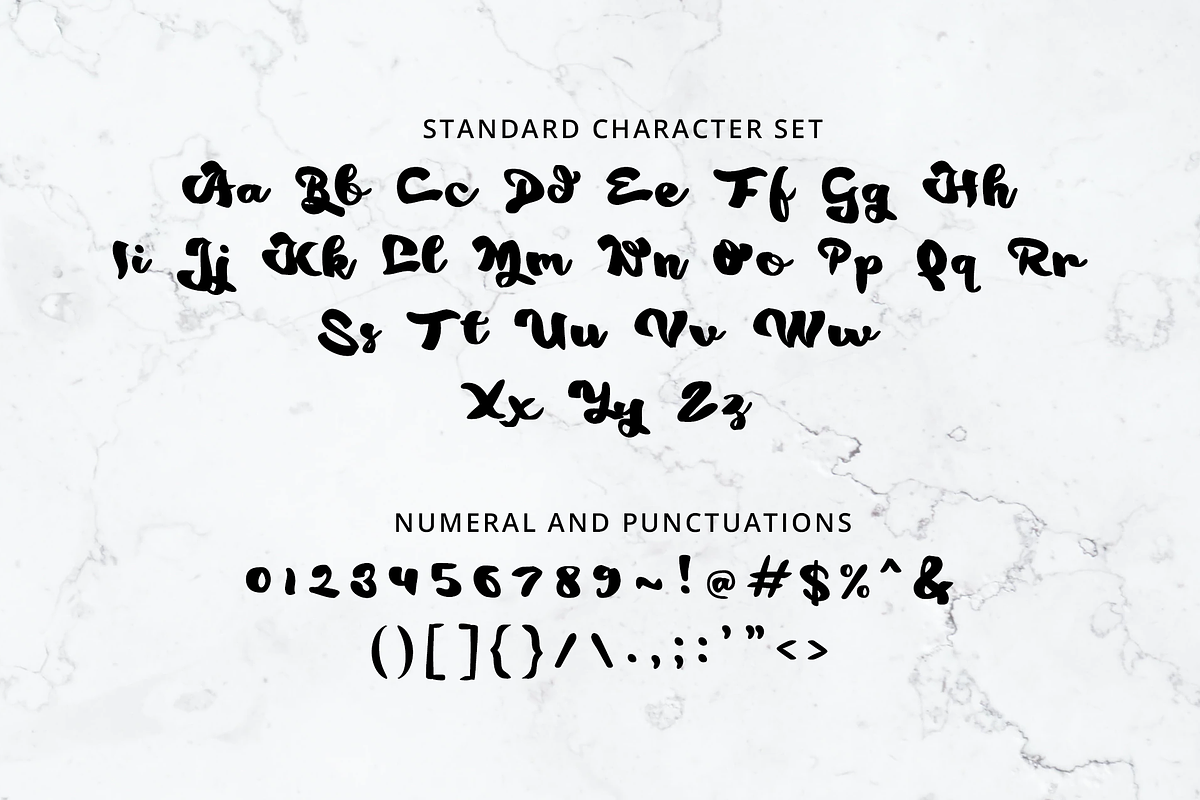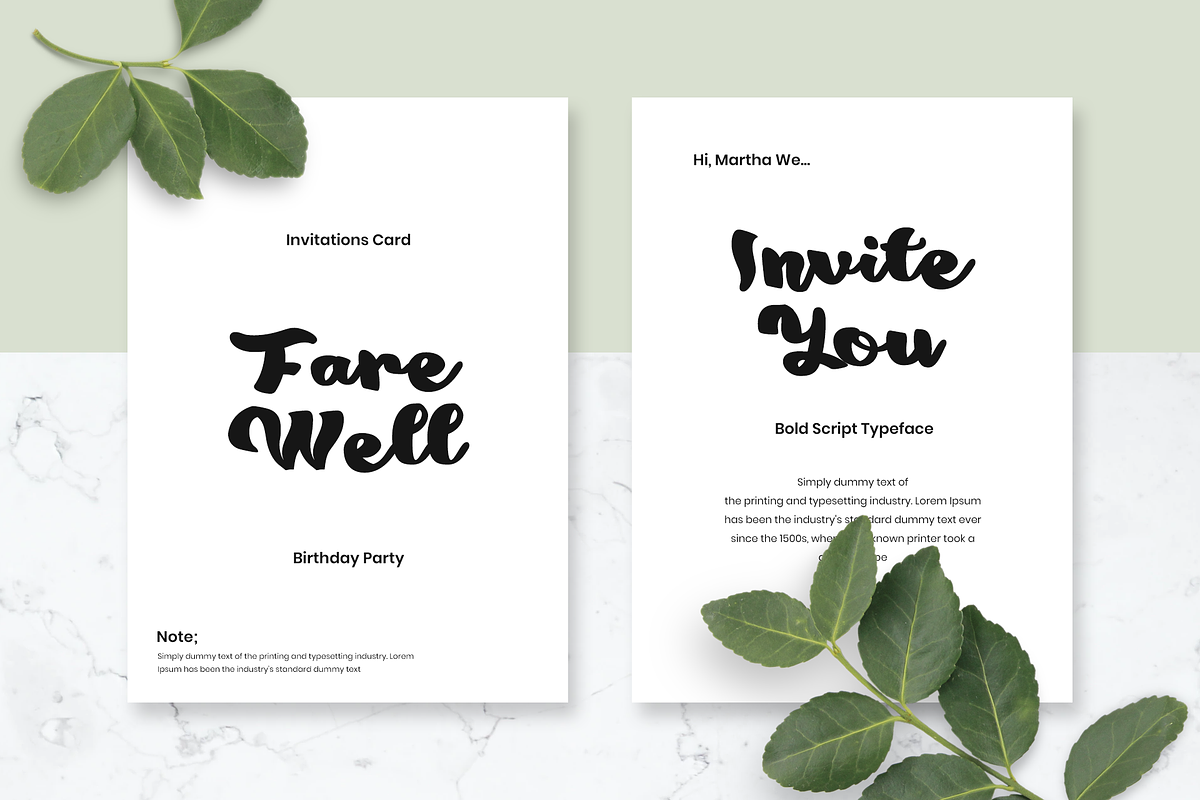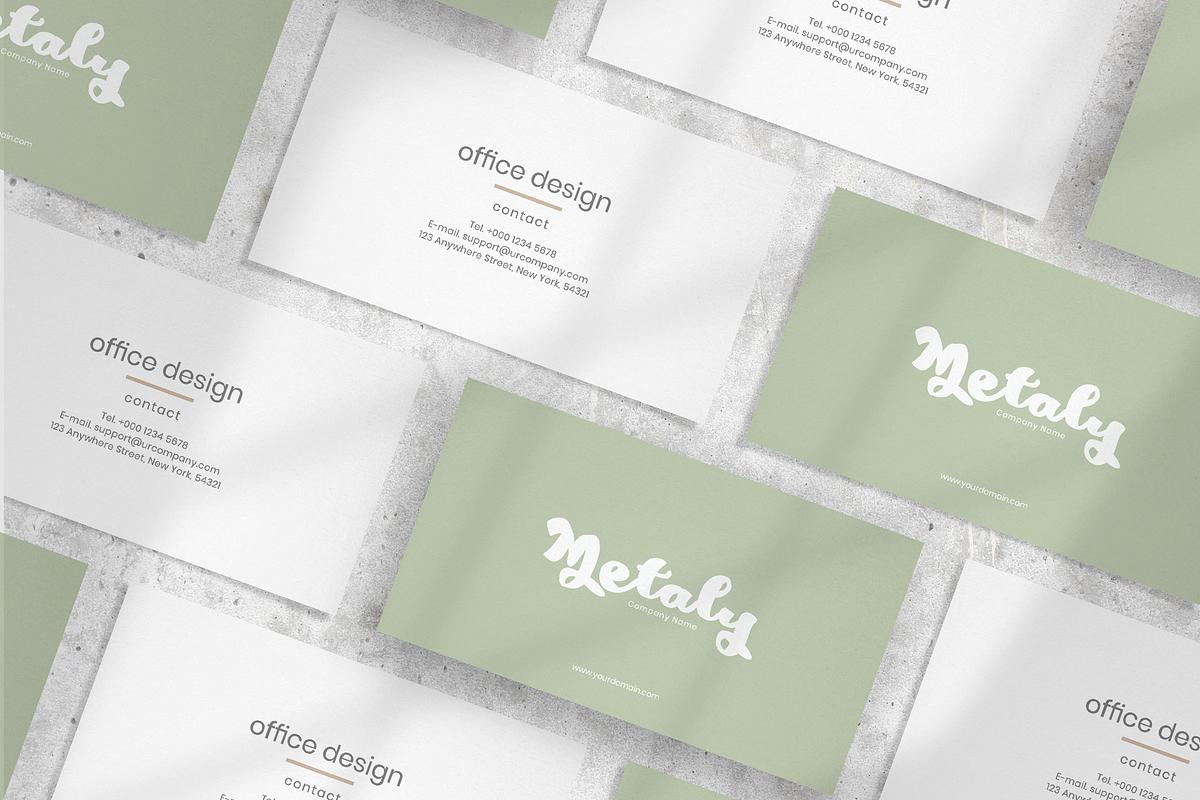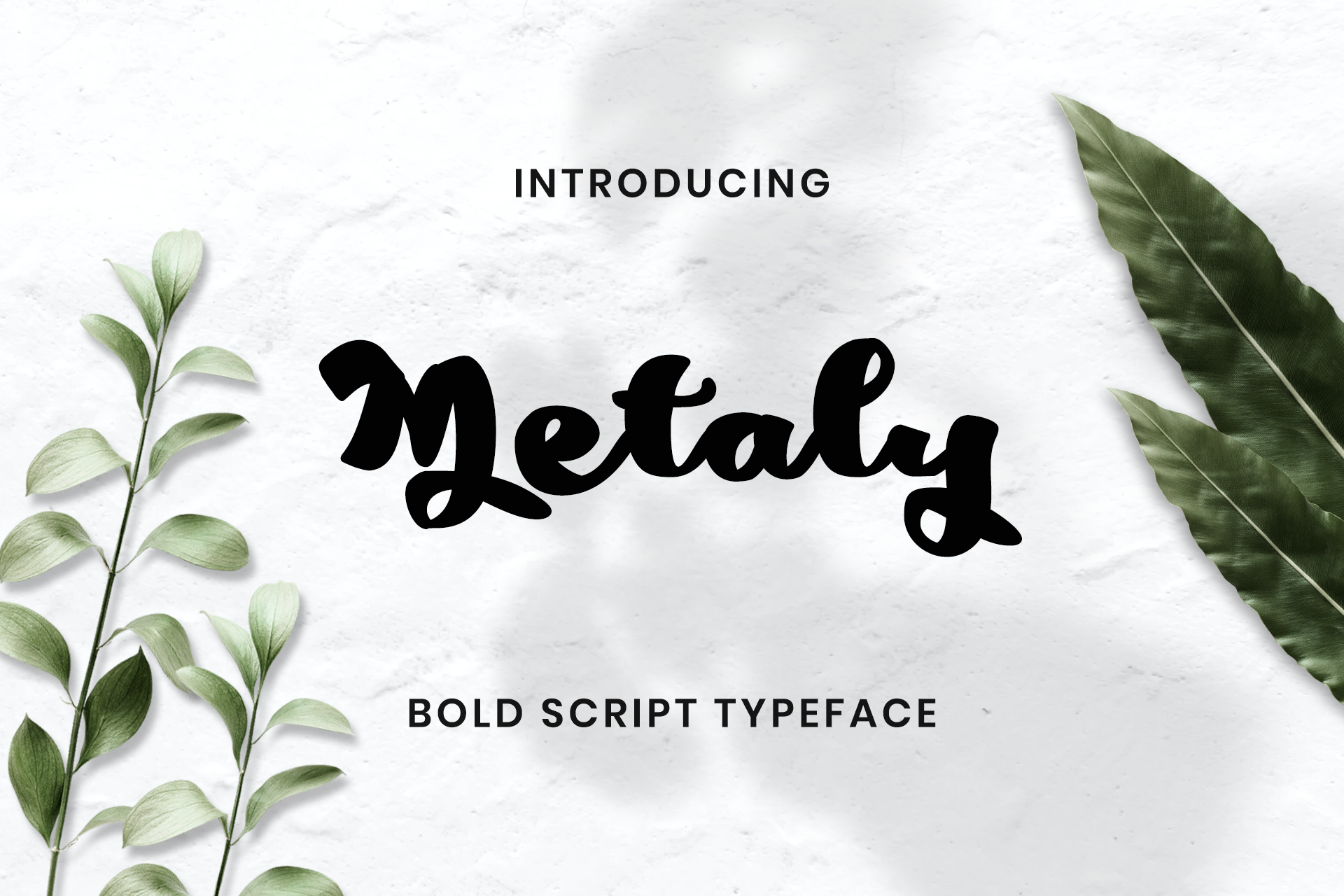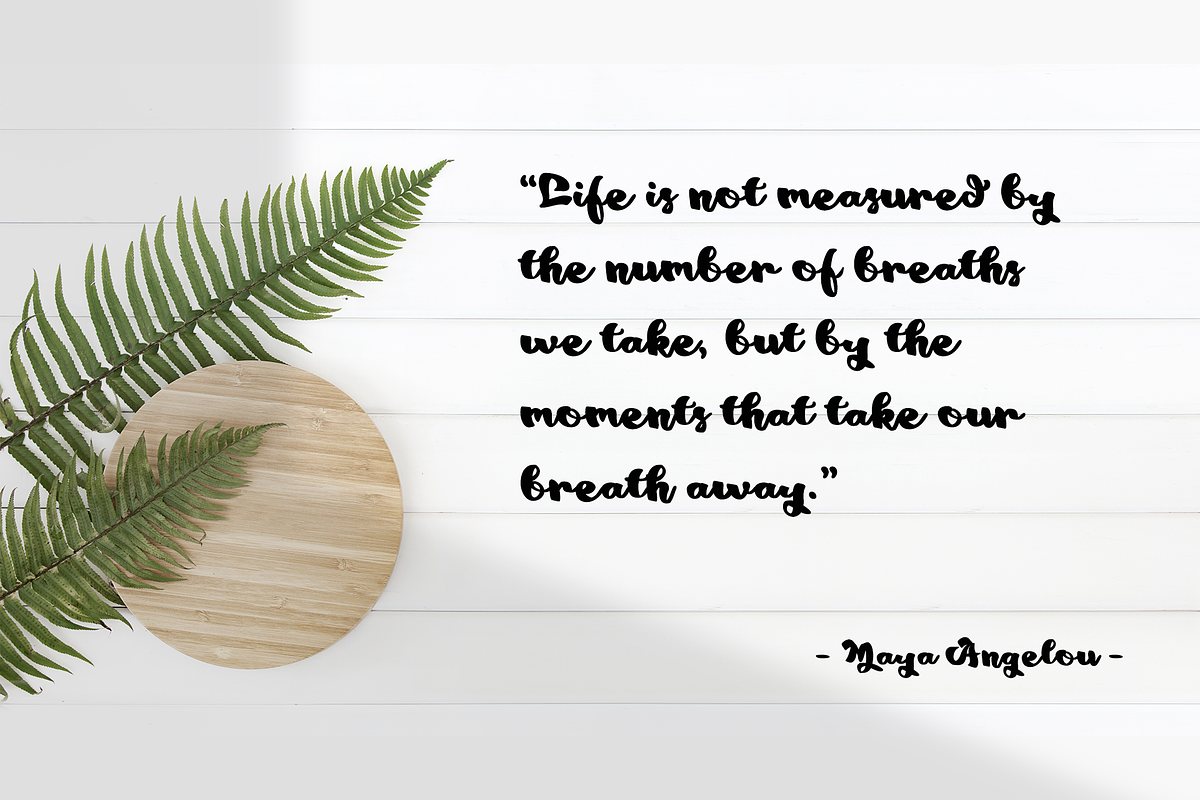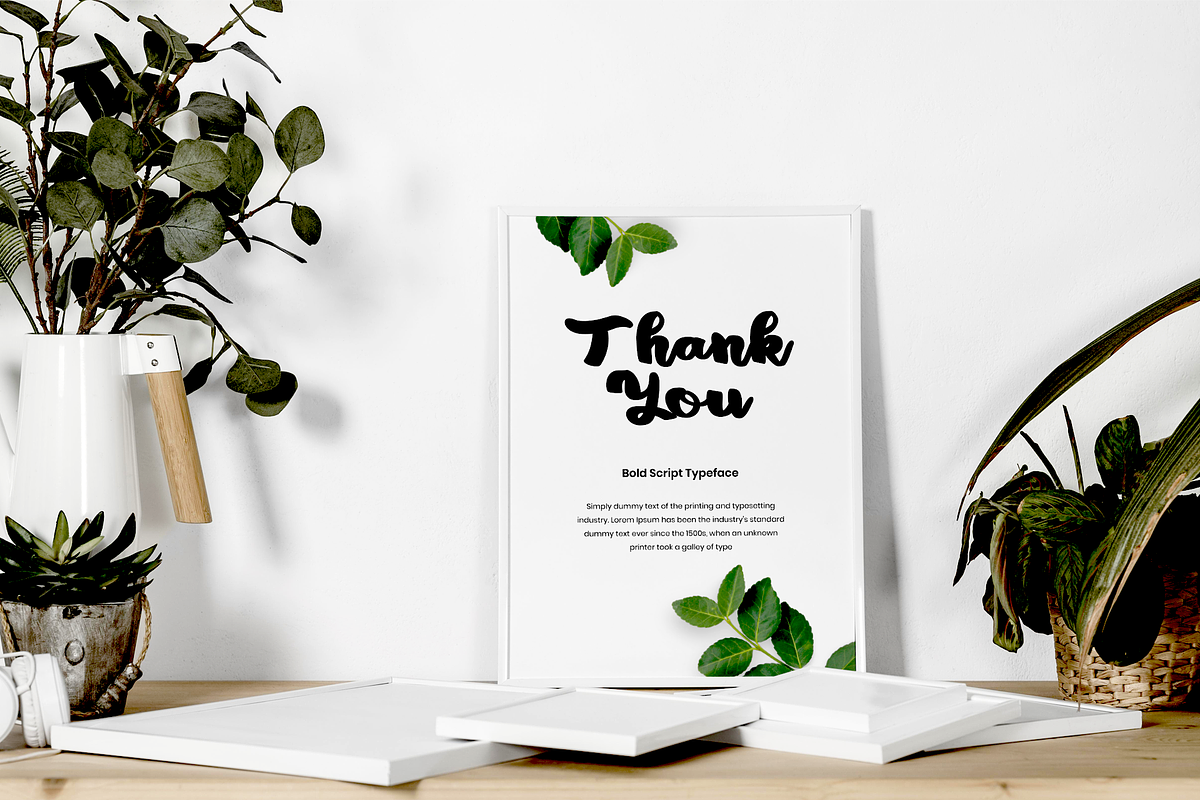
Metaly Modern Script Font
Merttalia Modern Scirpt Font, is our new font and suitable for mockup or any work.
Great for Sticker, Invitation Card, Brochure, etc.